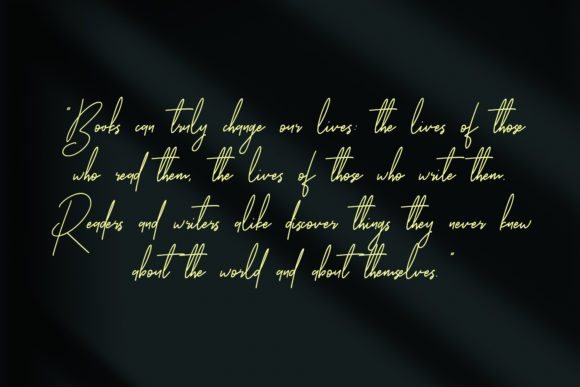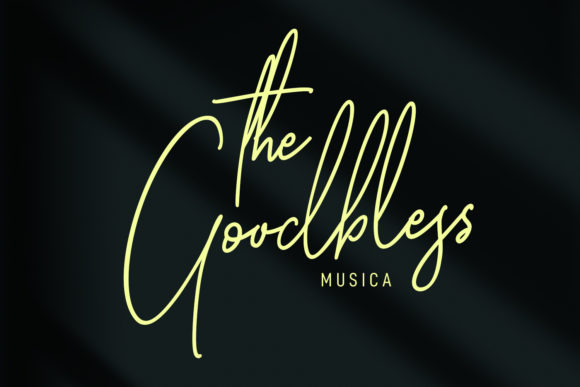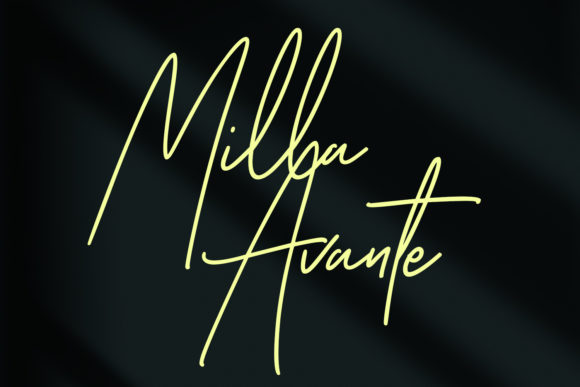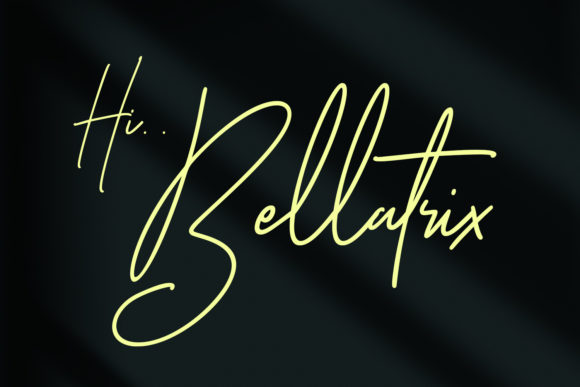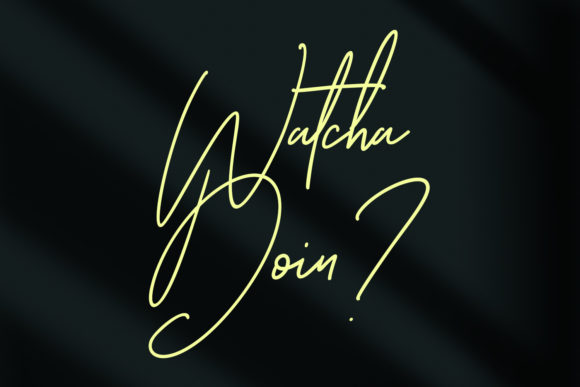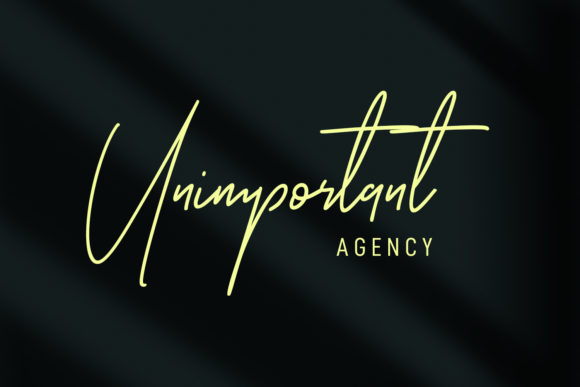
Introduction to Goofers Script Font
Goofers Script is a unique and fashionable script font.
It looks luxurious and delicate on wedding invitations, thank you cards, quotes, greeting cards, logos, business cards and every other design which needs a customized touch .
Key Features of Goofers Script Font
Why Choose Goofers Script Font?